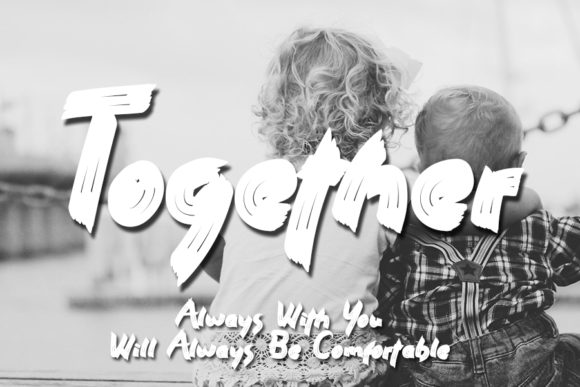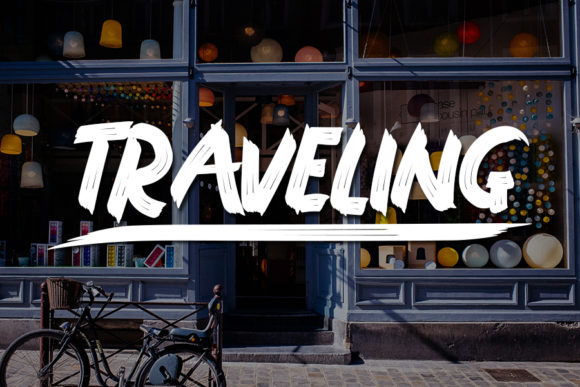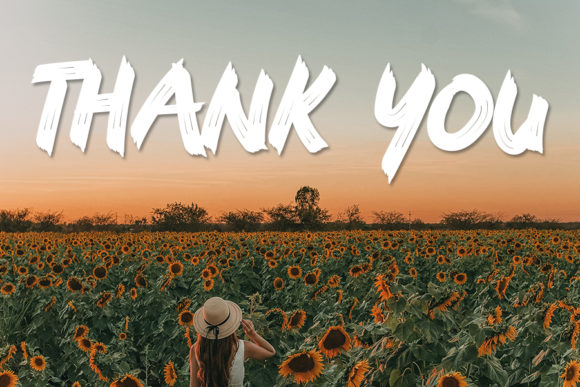
The High Font: A Brush Script Beauty for Your Designs
I’ll never forget the time I was working on a project for a client who wanted a bold, eye-catching font to make their brand stand out. I scoured the internet for hours, trying out different fonts, but none seemed quite right. That was until I stumbled upon the High font – a stunning brush script font that instantly caught my attention. In this article, I’ll share my experience with the High font, its features, and how to make the most of it in your designs.
My Honest Review of High Font
I’ve had the pleasure of working with the High font on several projects, and here’s what I think:
• ✨ Stunning brush script style: The High font has a unique, hand-crafted feel that’s perfect for making a statement.
• ✅ Easily readable: Despite its bold and script nature, the High font is surprisingly easy to read, even at smaller sizes.
• 💫 Versatile: The High font can be used for a wide range of projects, from branding and logos to social media graphics and more.
However, no font is perfect, and here are a few quirks to keep in mind:
• 🤔 Limited use in body text: While the High font is great for headings and titles, it may not be the best choice for longer body text due to its bold and script nature.
• ⚠️ Some glyphs may not work well in all platforms: As with any font, some glyphs or special characters may not work as expected in certain platforms or software.
The Story Behind High Font
The High font was designed by a team of creatives who wanted to create a bold, eye-catching font that would make a statement. Inspired by traditional brush script art, they crafted a font that would be both beautiful and functional. Today, the High font is used by designers and crafters around the world to create stunning designs that stand out.
What is the High font best used for? The High font is best used for headings, titles, and branding projects where a bold, eye-catching font is needed.
Is the High font suitable for body text? While the High font is easy to read, it’s not recommended for longer body text due to its bold and script nature.
Is the High font available in different styles? Yes, the High font comes in different styles and weights, making it versatile for various design projects.